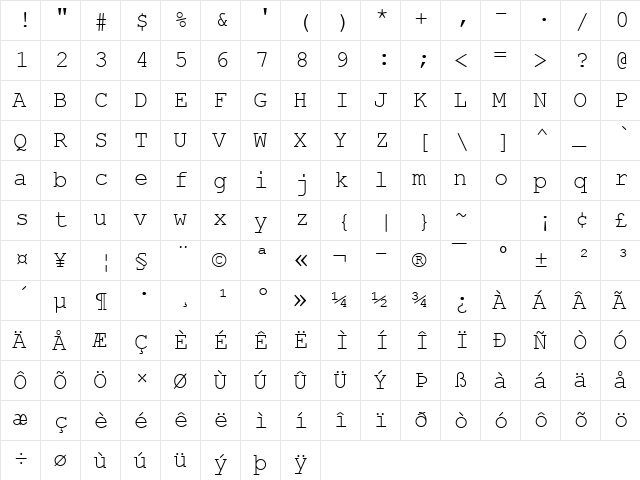
Courier New Regular
Design Context for Courier New Typeface
Courier New brings the precise, column-aligned rhythm of monospaced typography to designs that value technical clarity and systematic order.
Well-suited to data-driven dashboards, coding tutorials, and any design that wants to reference the world of programming.
Pro Tip: Use Courier New with slightly increased line-height for extended reading — fixed-width spacing can feel dense in longer passages without extra breathing room.